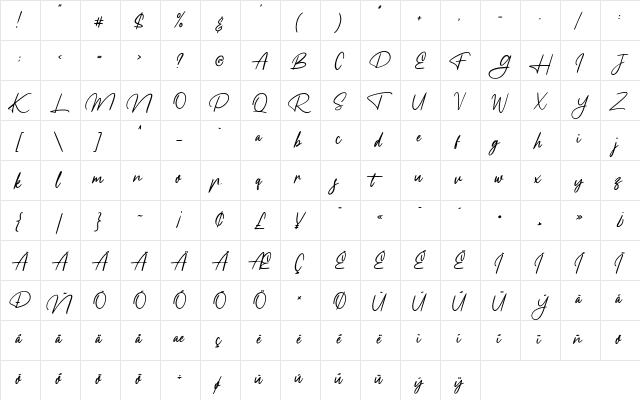
Meranie Regular
| Foundry | Garisman Studio |
| Designer | Risman Ginarwan |
Design Context for Meranie Typeface
Meranie is a composed and adaptable typeface that performs quietly and consistently across a wide range of design contexts.